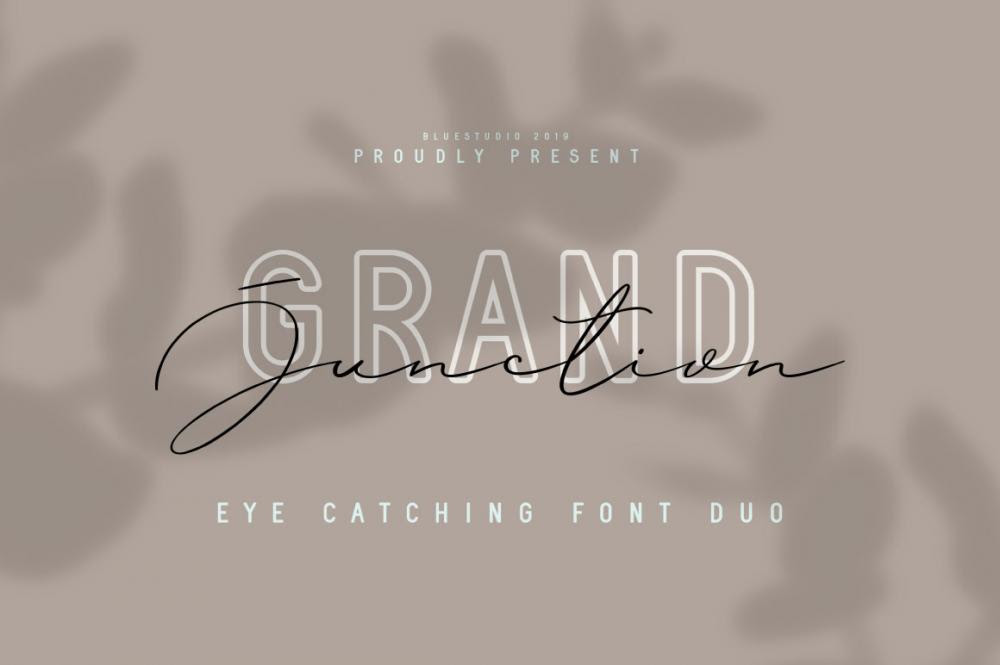
Grand Junction Font Duo is the perfect collection of fonts for any design project that requires a light and charming feel. Use it to turn any design project into a true standout!